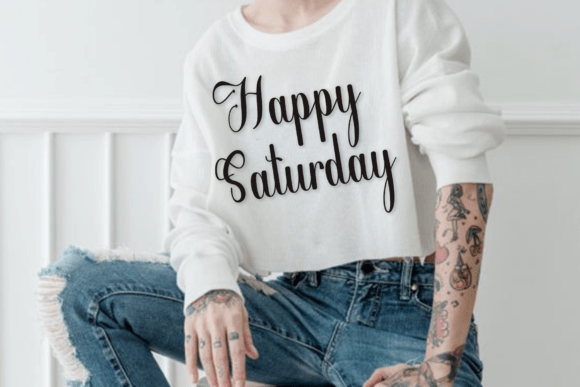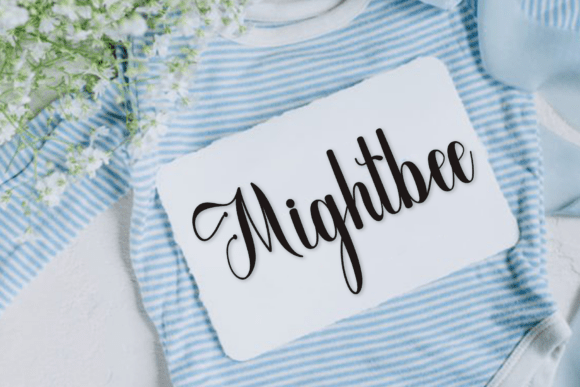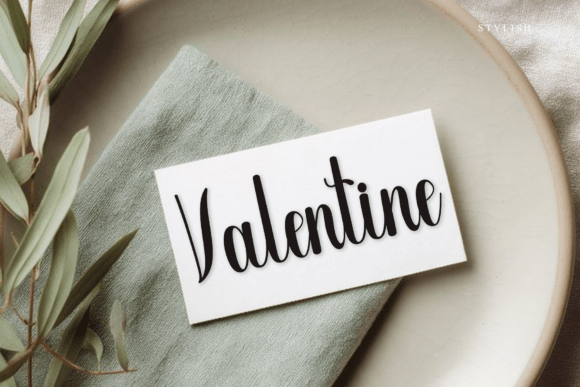
Get Ready to Hug Your Audience with the Bunny Girl Font
You know that moment when you’re brainstorming ideas for a new project and suddenly, a spark of creativity hits you? You envision a design that’s both playful and professional, something that makes people smile. For many designers, finding the perfect font can be the difference between a good design and a great one. Enter the Bunny Girl Font, a charming, hand-drawn typeface that’s sure to capture the hearts of your audience.
This delightful font is perfect for personal projects, invitations, and social media graphics where you want to convey warmth and friendliness. With its round, playful strokes, the Bunny Girl Font adds a unique touch to any design. Plus, its standard PUA Encoded glyphs make it easy to use in various applications like Adobe Photoshop, Corel, and Adobe Illustrator.
Bunny Girl Font Key Features
- Font Family: Bunny Girl is a unique, hand-drawn font designed to evoke a sense of playfulness and femininity.
- Unique Characteristics: The font features a distinctive, hand-drawn style with curved lines and subtle flourishes, giving it a charming and whimsical feel.
Bunny Girl Font Review
Overall, I found the Bunny Girl Font to be a cute and quirky addition to any design project. ✨ The rounded edges and playful strokes give it a whimsical feel that’s perfect for feminine or child-friendly designs.
- ✨ Unique and recognizable style that stands out from more common fonts
- ✨ Well-suited for headings, titles, and other text that needs a bit of flair
- ✨ Can be easily paired with other fonts to create a visually appealing combination
- ⚠️ Limited font sizes and styles may make it difficult to use for larger blocks of text
- ⚠️ Not ideal for professional or formal designs, as it may come across as too playful or childish
- ⚠️ Some characters may not be as detailed or clear as others, which can be a problem at smaller sizes
I would recommend the Bunny Girl Font for designers looking to add a bit of personality to their projects. While it may not be suitable for every design, it’s a great choice for those who want to create something fun and engaging. Just be aware of its limitations and use it judiciously.
Use the Bunny Girl Font for playful and whimsical designs, such as:
- Birthday invitations
- Children’s party decorations
- Food labels and packaging
The Bunny Girl Font is ideal for:
- Cartoon-style graphics
- Children’s educational materials